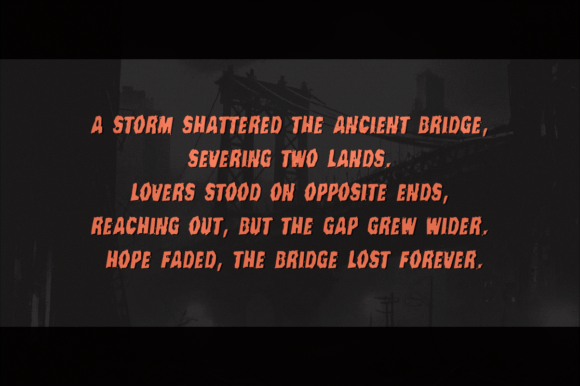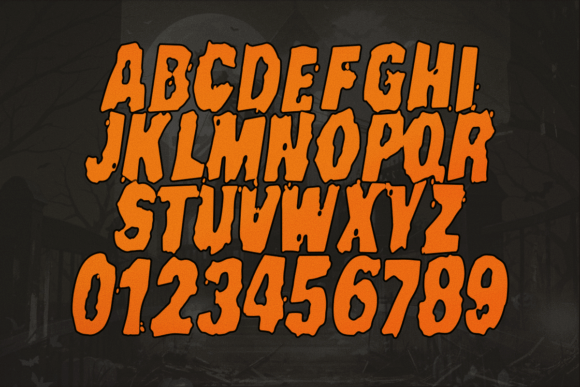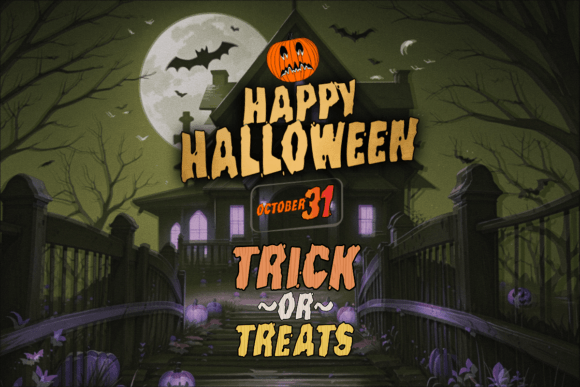
introducing Broken Bridge –a bold display font with edgy, grunge vibes that shatters expectations and commands attention.
Perfect for designs that dare to defy the norm .
Broken Bridge Font offers exceptional quality and versatility, making it a valuable addition to your design toolkit. Whether you’re creating for personal projects or commercial use, Broken Bridge Font delivers professional results.